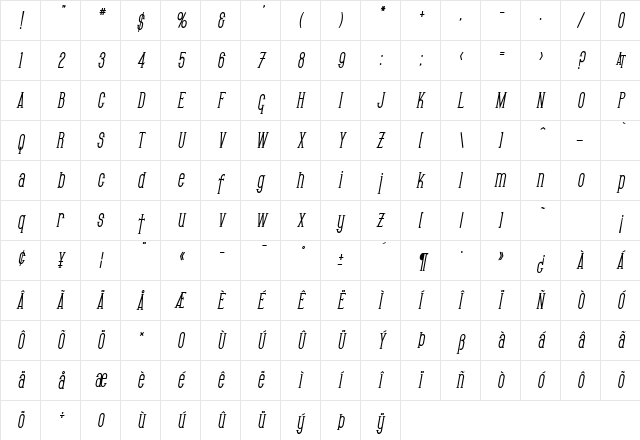
SF Gothican Condensed Bold Oblique
Complete SF Gothican Condensed Bold Oblique glyph index. Displaying only characters natively supported by SF Gothican Condensed Bold Oblique font.
Design Context for SF Gothican Condensed
SF Gothican Condensed takes a clean, functional approach - its unadorned letterforms prioritise legibility and work reliably across screen and print environments. The slanted form adds forward momentum and visual energy. Its bold stroke weight gives it real presence on the page. Its narrow stance lets it pack a punch even in space-constrained designs.
Font Pairing: Use SF Gothican Condensed for headlines alongside a lighter-weight sans or serif for body copy to establish clear visual hierarchy.
Pro Tip: Use SF Gothican Condensed tightly set in headlines and banners - its condensed proportions make it ideal for maximum impact in minimum horizontal space.